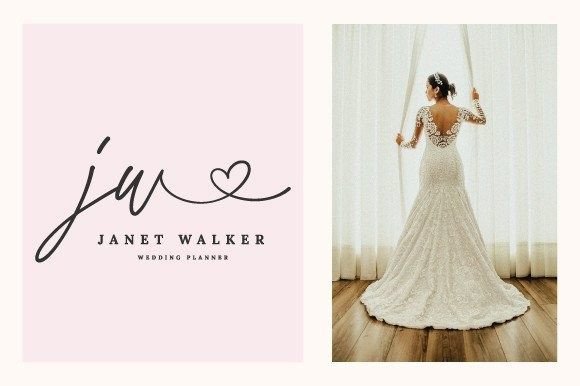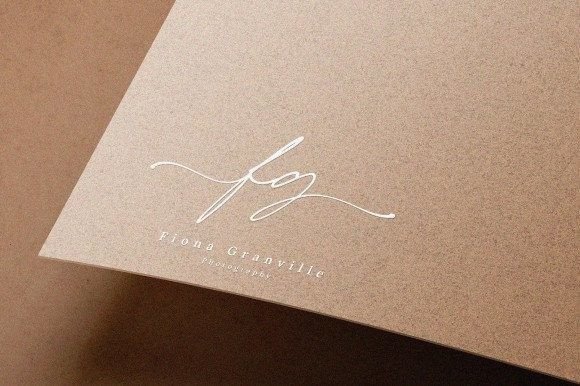
Love Limits Font
Love Limits is a stylish handwritten font ready to accompany your design projects. Add it to branding, logotypes, wedding invitations, and many more, and watch how it captures everyone’s heart and attention!